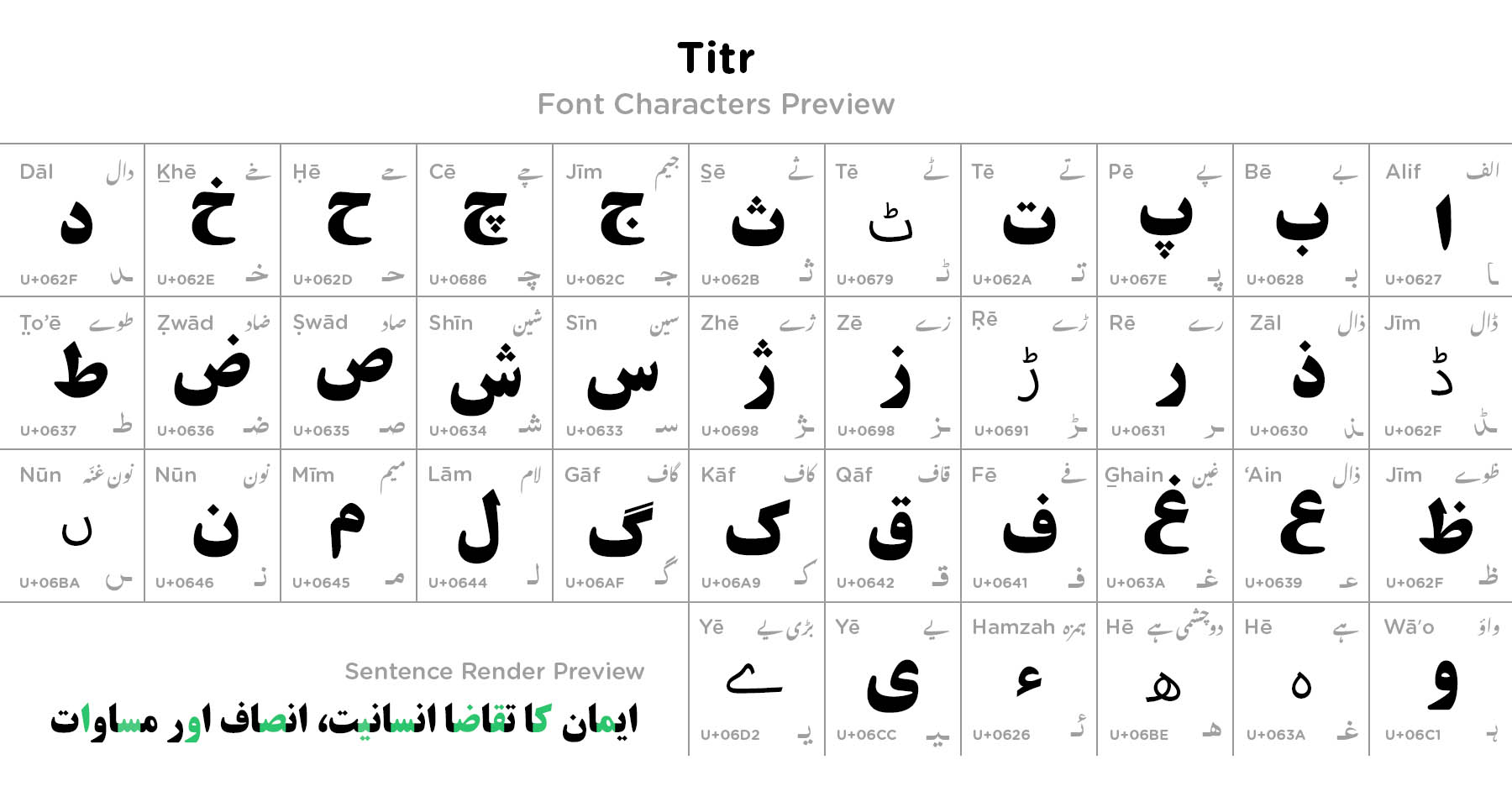
Titr is a bold TrueType Arabic/Persian font ideal for headers, posters, and other appealing writing. It was liscenced under Sinasoft Co. a Persian foundry in 2001. The design is solid, with sharp angles and broad strokes. Titr comes in two weights including:
So, no matter how small the text is, it would be clear and readable. It has a glyph count of 458 and vast character set of 764, compatible with Arabic, Latin, Persian, and Greek. The strokes maintain a uniform thickness throughout, contributing to the overall clarity and stability of the font. Titr is based on the geometric sans-serif typeface; therefore, it lacks any decorative factors. Titr is also a suitable choice for large-format text such as headlines. However, due to its thick appearance, it is not suitable for longer texts, thus limiting its usability.